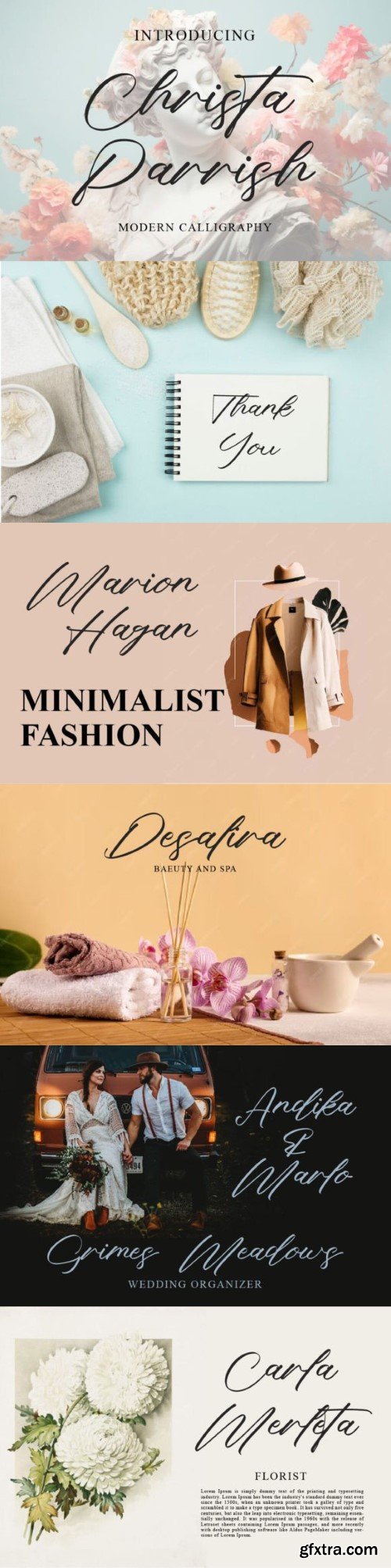
克里斯塔·帕里斯字体
Christa Parrish is perfectly made to be applied especially in logos, headlines, signage, and the other various formal forms such as invitations, labels, logos, magazines, books, greeting/wedding cards, packaging, fashion, makeup, stationery, novels, labels or any advertising purpose. This product was created to help you make your digital images even more beautiful and unique.